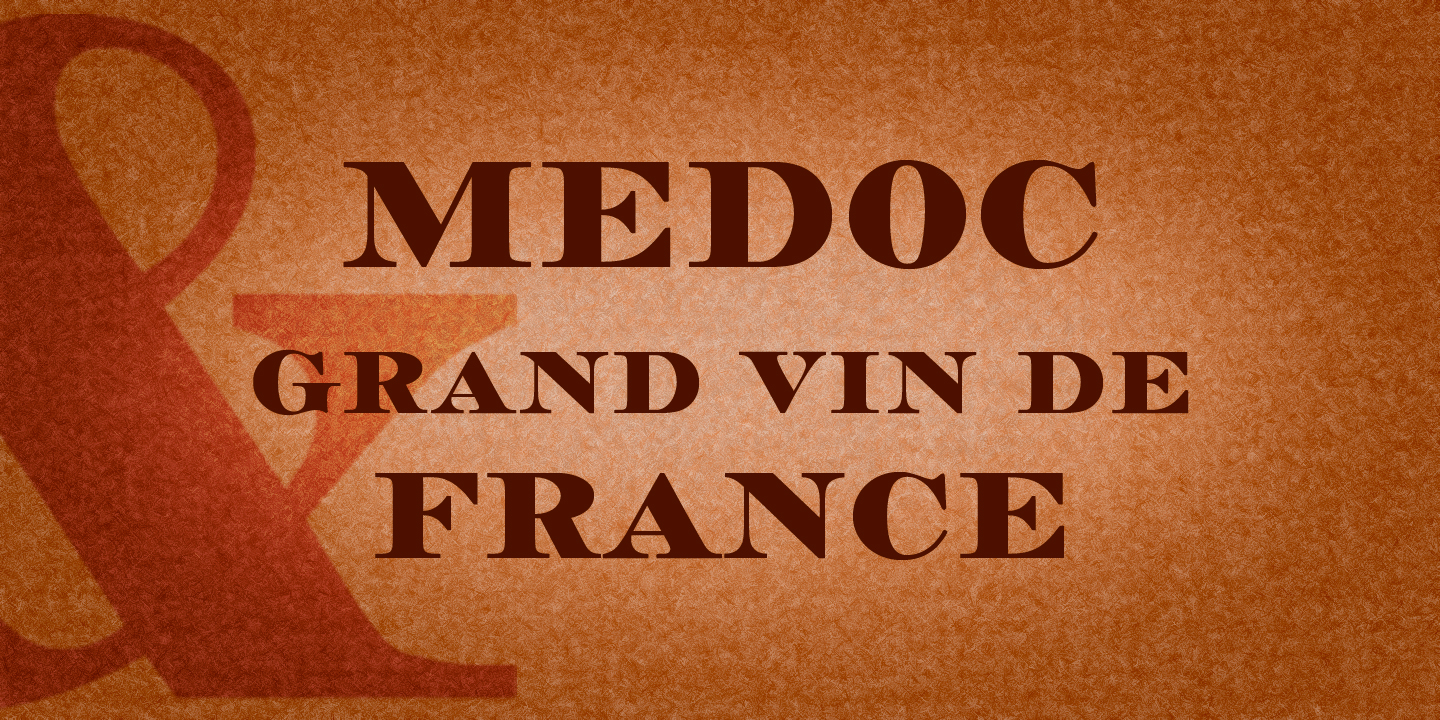
This elegant typeface is perfect for wineries, vineyard branding, wine labels, luxury restaurants, gourmet food packaging, fine dining establishments, wine tourism, sommelier services, viticultural education, wine tasting events, cellar collections, and premium beverage brands. The font's sophisticated design makes it ideal for projects that celebrate the refined art of winemaking, terroir appreciation, and the cultured lifestyle associated with wine appreciation and gastronomic excellence.
Medoc Font is exciting because it embodies the sophisticated elegance and rich heritage of fine winemaking through its refined letterforms and vineyard-inspired character structure. The font's graceful curves and cultured proportions create an atmosphere of luxury, tradition, and sensory appreciation, making it perfect for brands that want to convey expertise, refinement, and the timeless appeal of exceptional wine craftsmanship. Its cultivated personality ensures instant sophistication while maintaining excellent readability across various wine applications.
The Medoc Font family includes multiple vintage variations: Light Rosé, Regular Burgundy, Medium Bordeaux, Bold Cabernet, and Black Reserve weights, each available in standard and italic versions. Special wine editions feature vineyard alternates, grape ornaments, and sommelier symbols that enhance the font's viticultural appeal, providing designers with comprehensive tools for creating authentic wine-focused communications.
Cultivate refined taste with Medoc Font Free Download – a typeface that represents winemaking excellence and sophisticated appreciation. Whether you're developing vineyard branding, wine label designs, or luxury dining marketing campaigns, this font delivers the elegant presence and cultured sophistication your projects need while ensuring exceptional performance and refined impact across all wine and gastronomy applications.